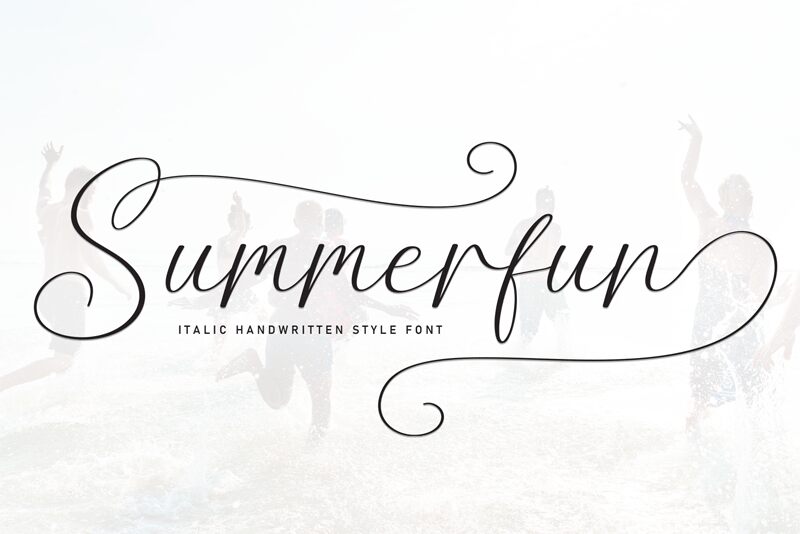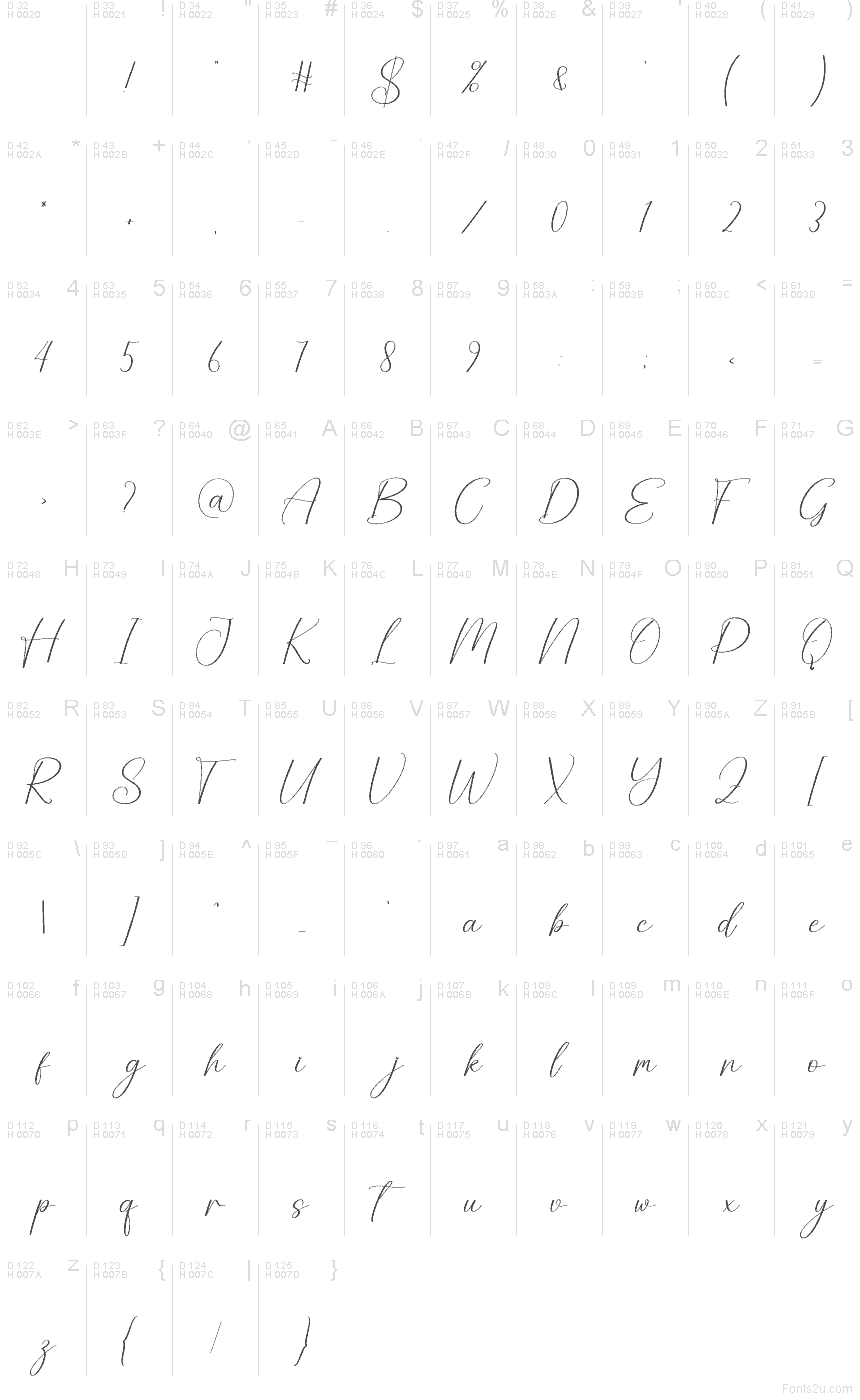
Summerfun
Summerfun font by Scratchones is a free handwritten script typeface that feels like a sunlit note dashed off on smooth paper. Its long, looping curves and slim ink lines give every word a breezy, effortless charm, while the consistent rhythm keeps it elegant rather than messy. Letters connect in a gentle flow that reads as personal and romantic, without sacrificing clarity.
Using Summerfun, this free font shines on wedding stationery, save-the-dates, lifestyle logos, Instagram quotes, product packaging, and greeting cards. It brings a soft, feminine touch that works beautifully for brands and projects that want warmth over formality. Try pairing Summerfun with a clean sans serif for body text and keep this script slightly oversized to let those graceful strokes breathe.